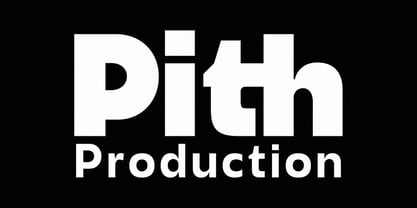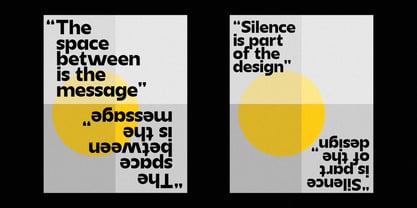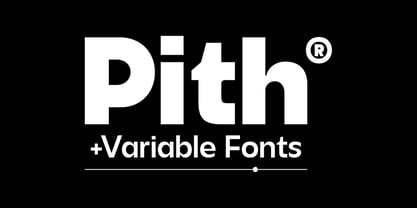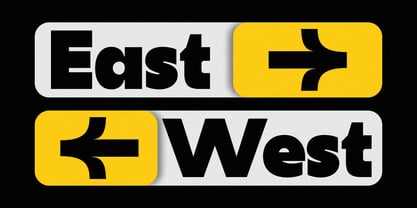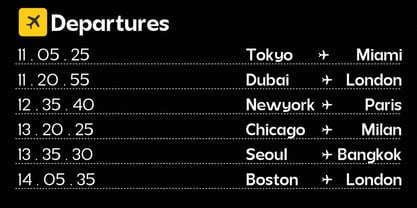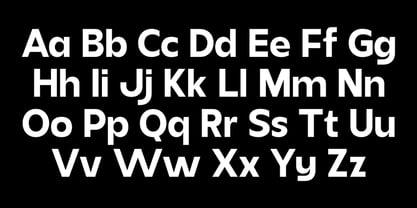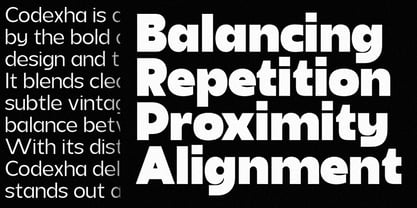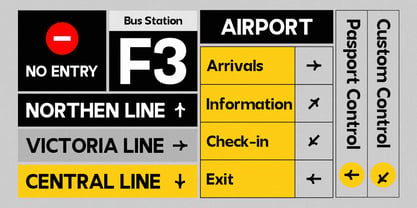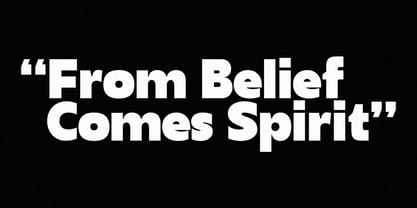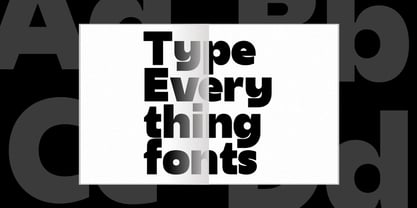
Pith
Codexha Family is a modern sans-serif typeface designed with a clean, minimal, and functional approach. It blends strong geometric structures with subtle humanist touches, creating a balanced look that feels both contemporary and highly readable.
Each character is crafted with consistent proportions, smooth curves, and refined details, resulting in a professional and elegant appearance. The well-balanced spacing and kerning ensure clarity across different sizes, making it effective for both large displays and smaller text.
Codexha Family is highly versatile and suitable for a wide range of design applications, including branding, logos, editorial layouts, UI/UX design, posters, and digital content. Its modern aesthetic makes it perfect for brands that want to appear clean, fresh, and sophisticated. It works well as both a headline and body text font, offering flexibility for designers who need a strong yet simple visual identity.